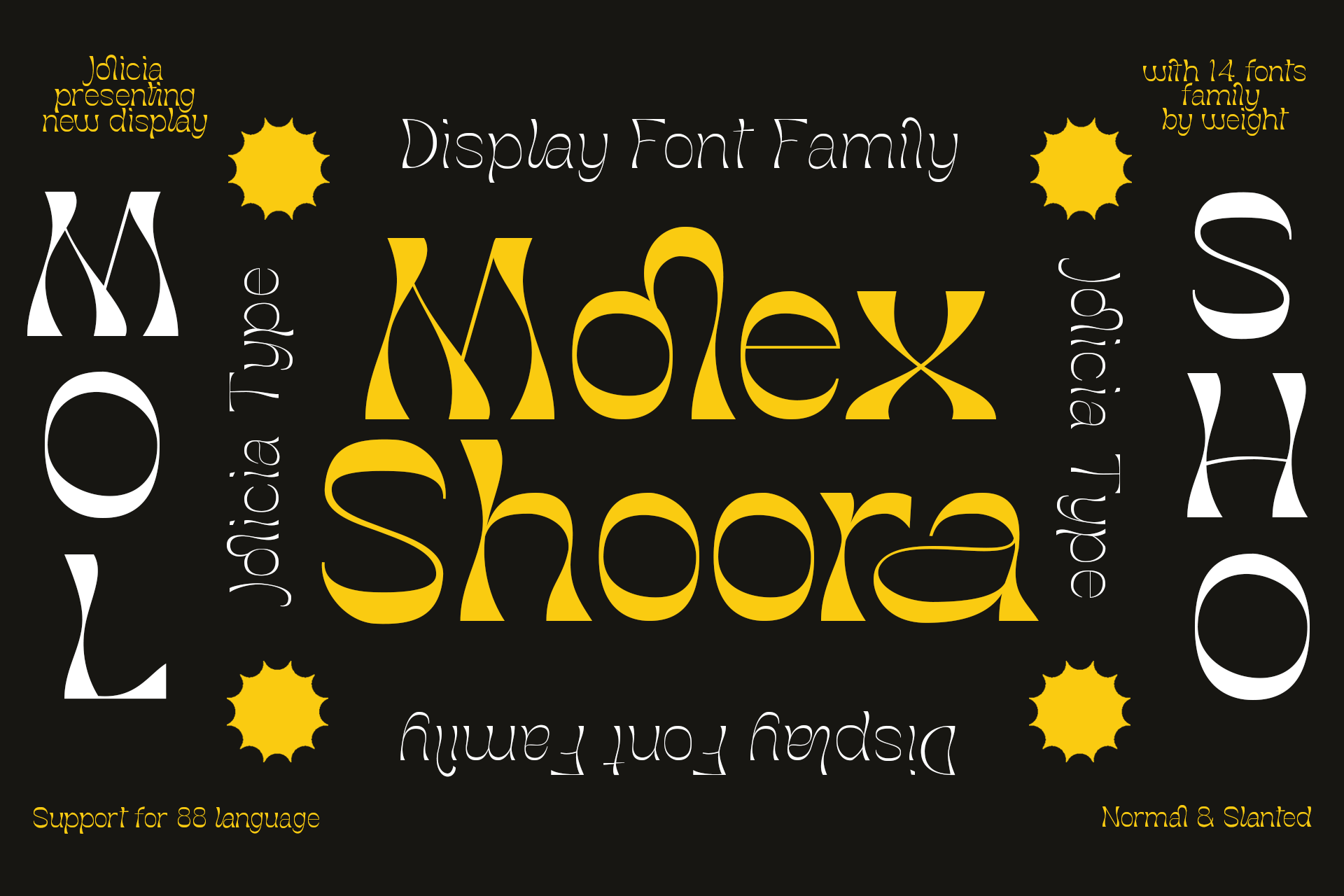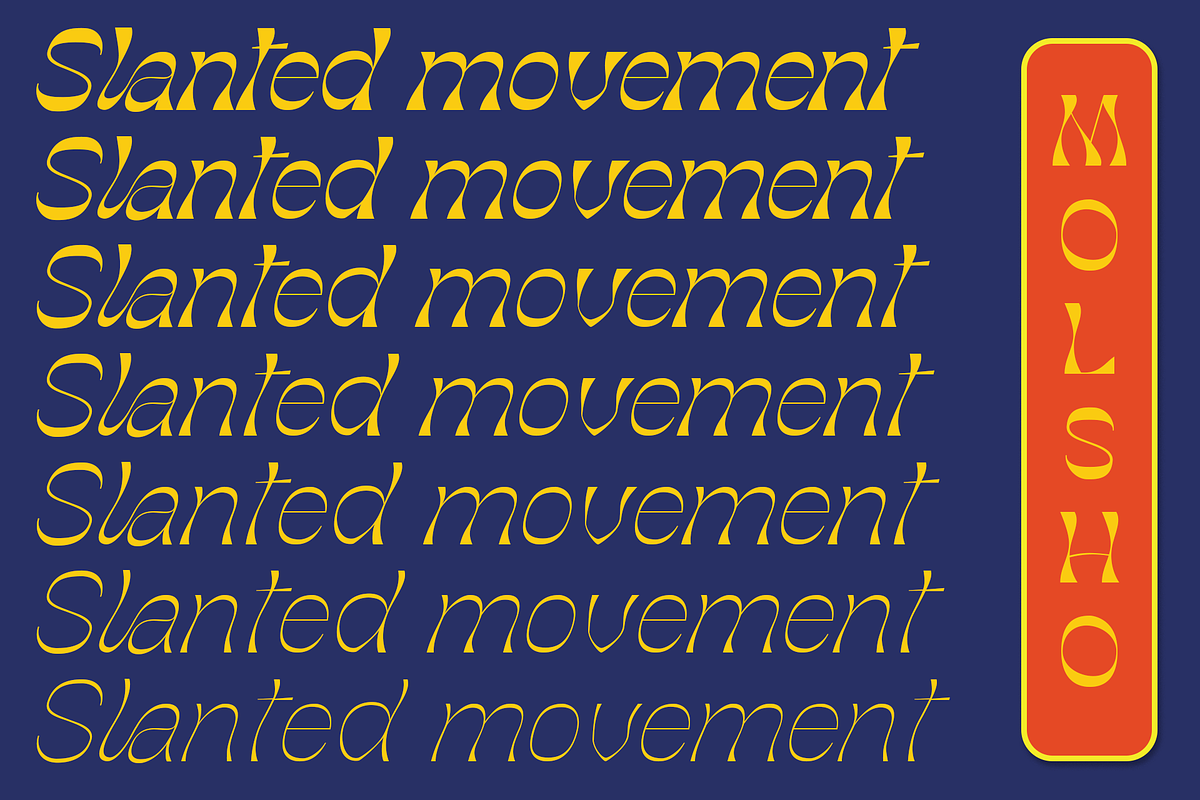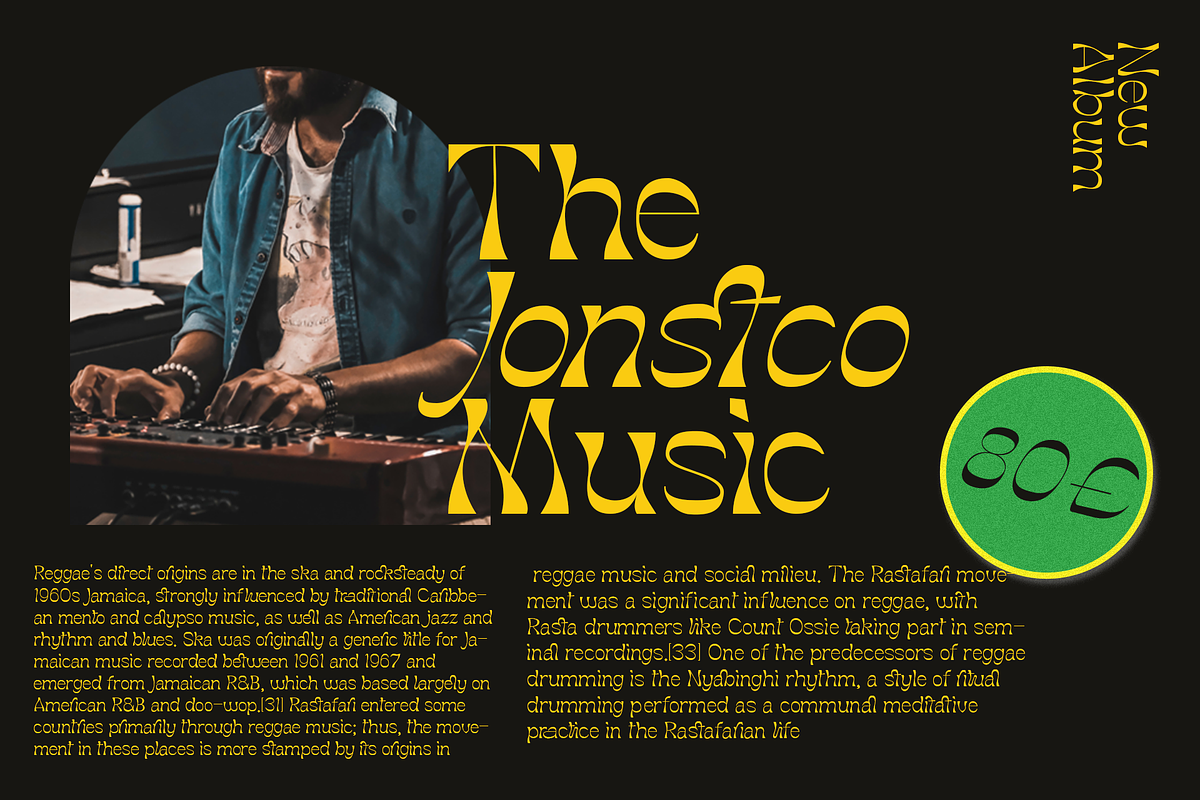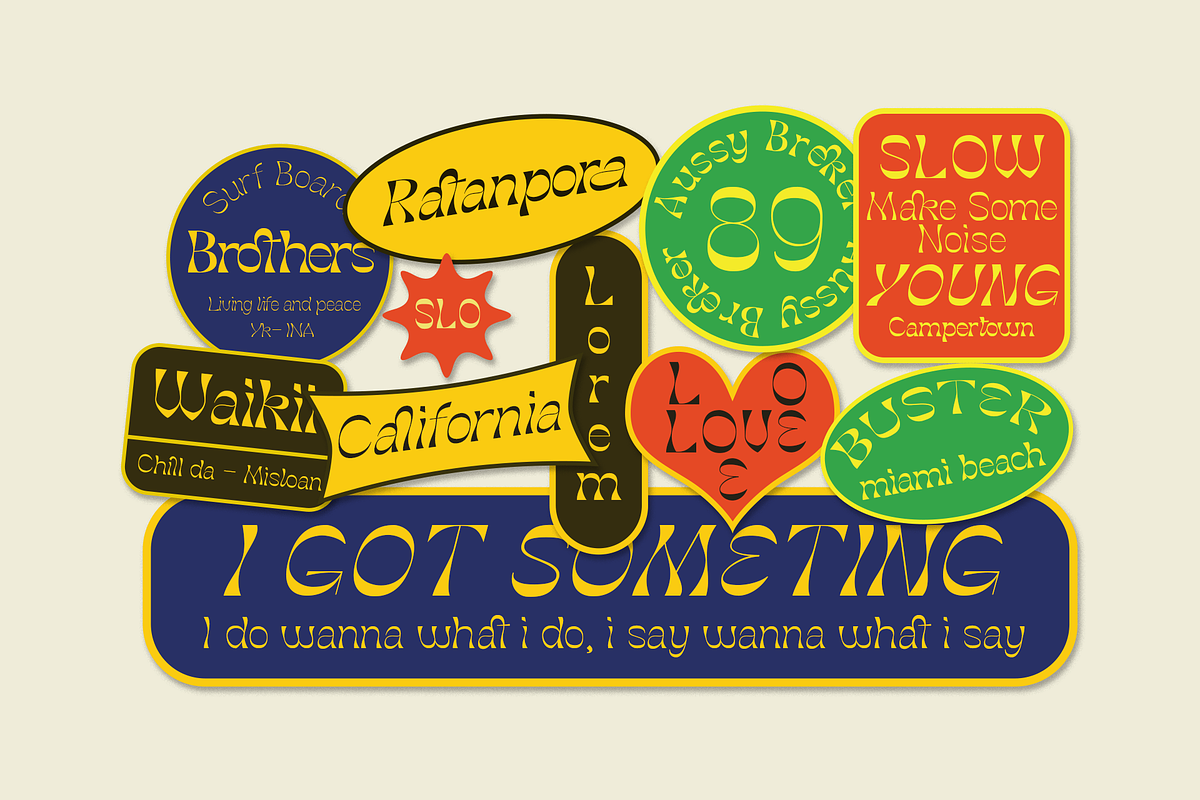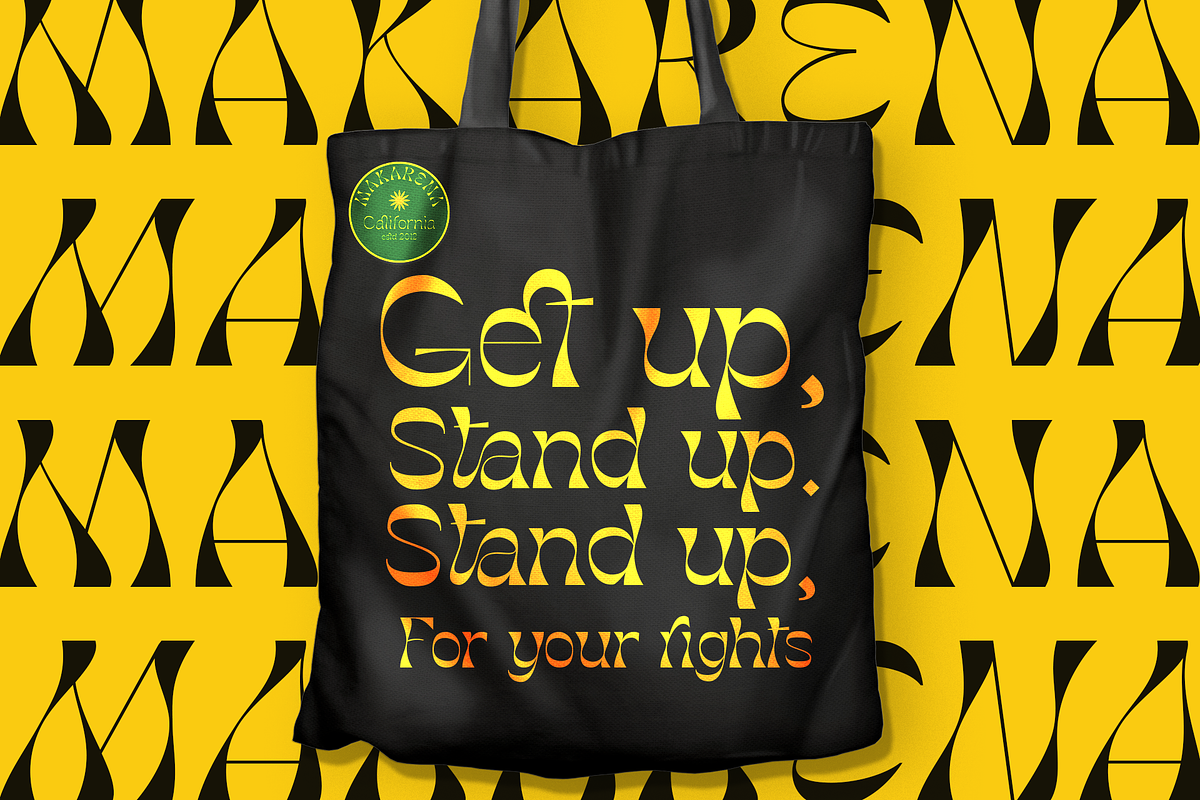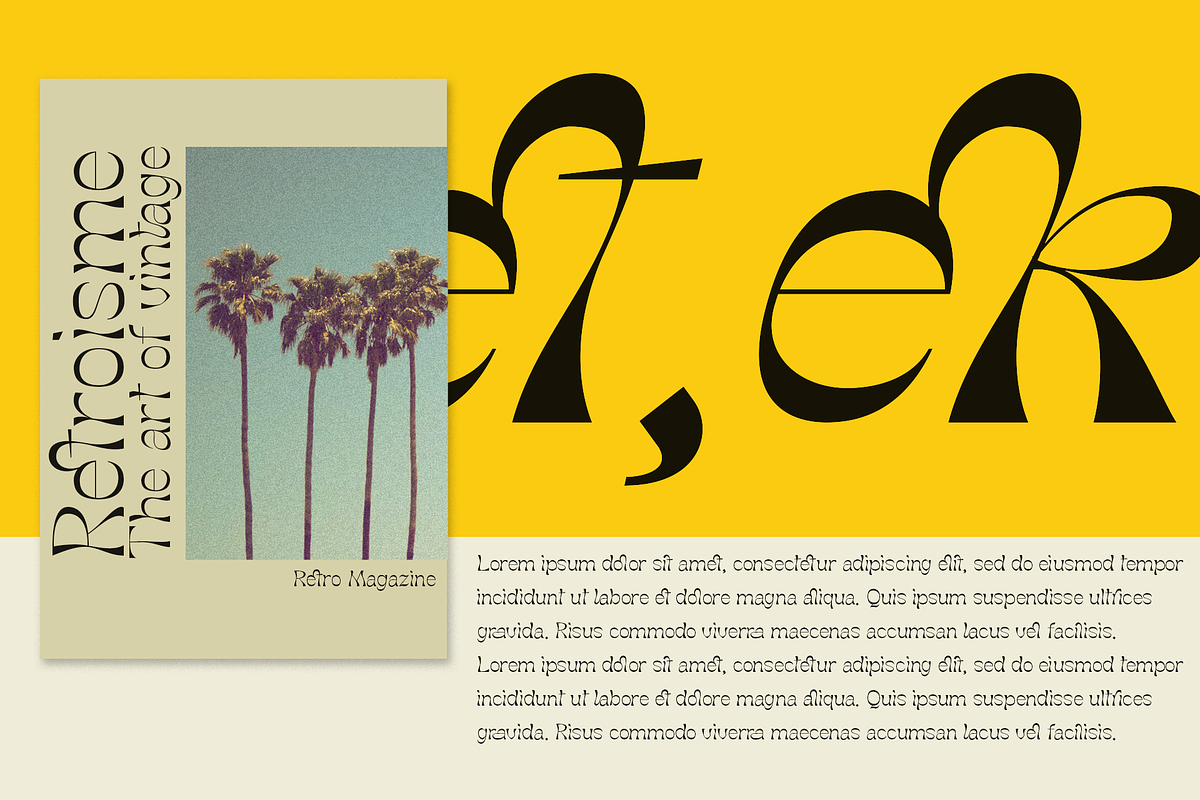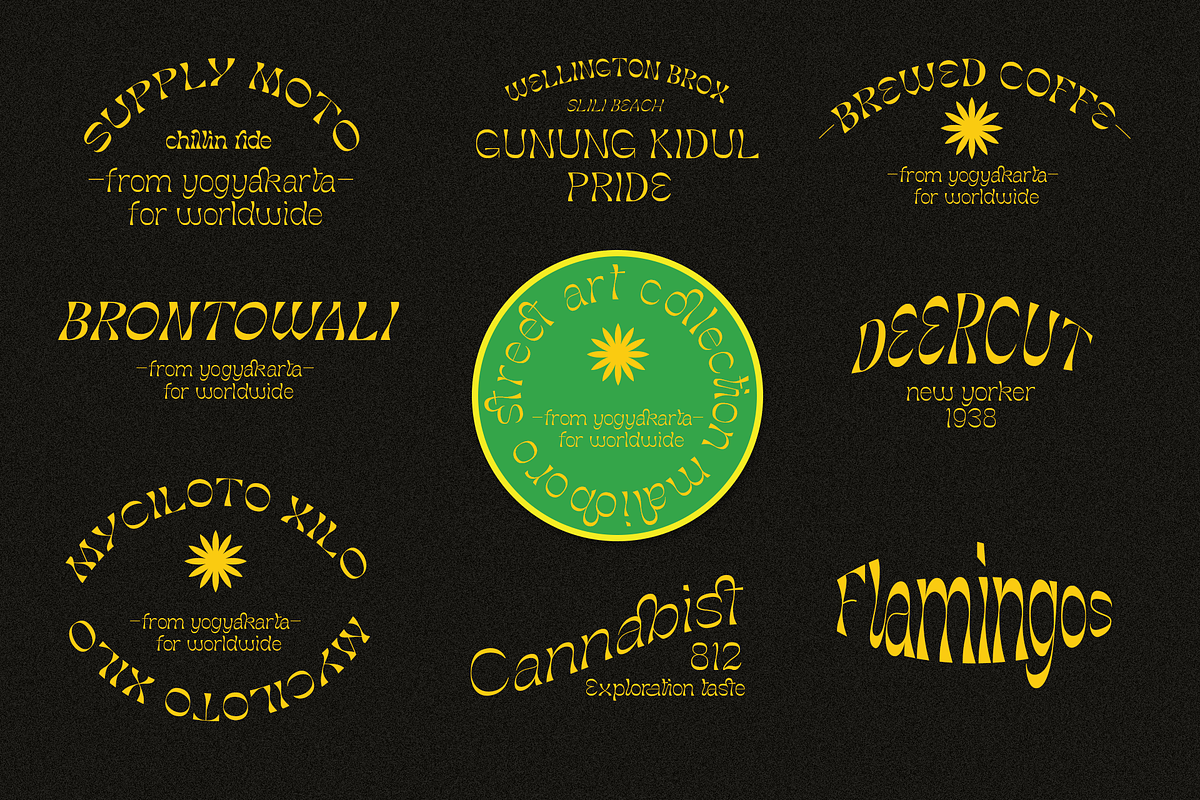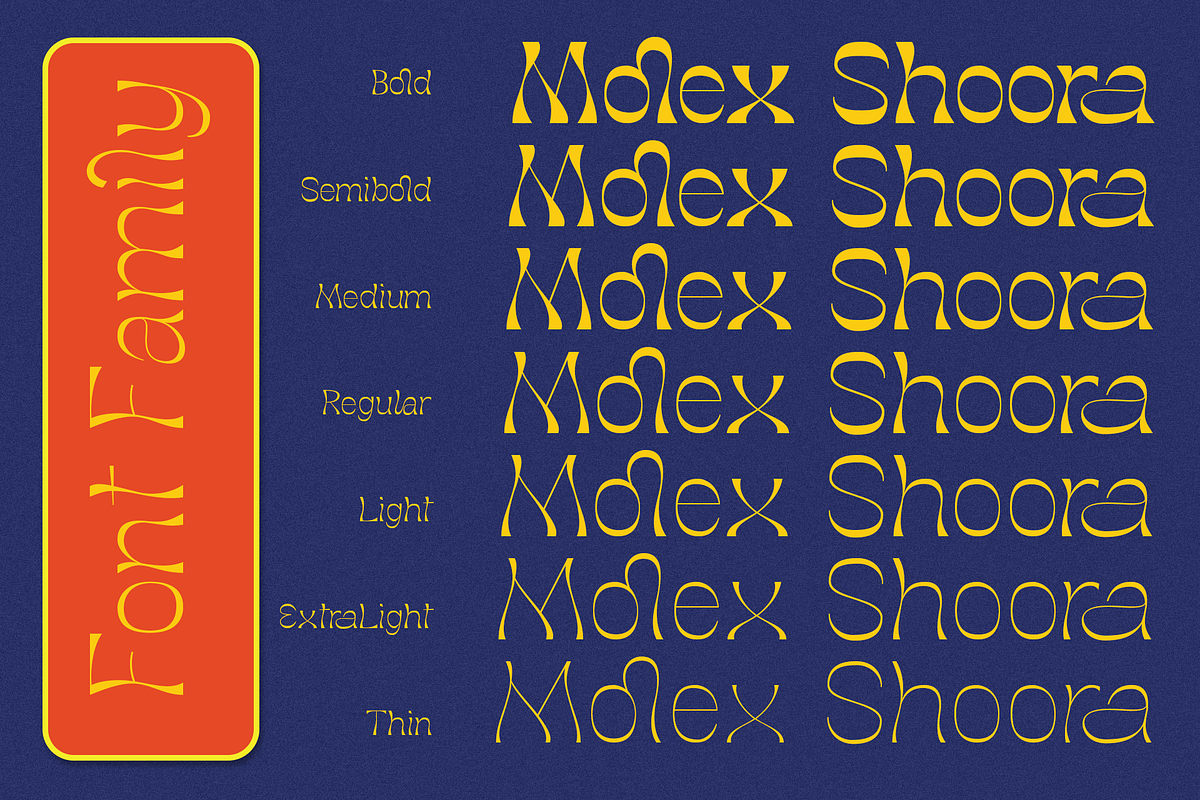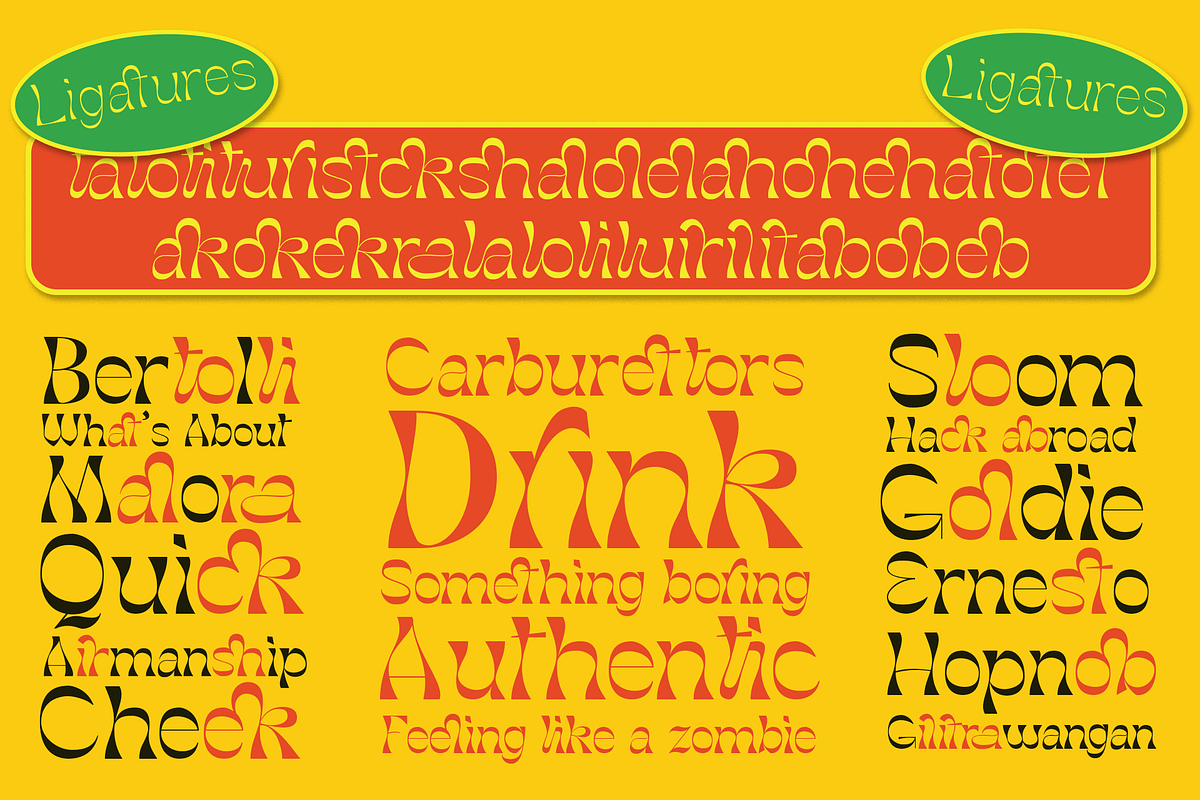
Molex Shoora | Reverse Contrast Font
Molex Shoora is a typeface that is inspired by retro-style writing. We make each element with a unique style, made on the top and bottom edges thick and in the middle it starts to thin which is consistent with each letter
There are 14 font family for the choice of the desired letter design 31 ligatures combined with each other add to the fun style 410 total glyphs